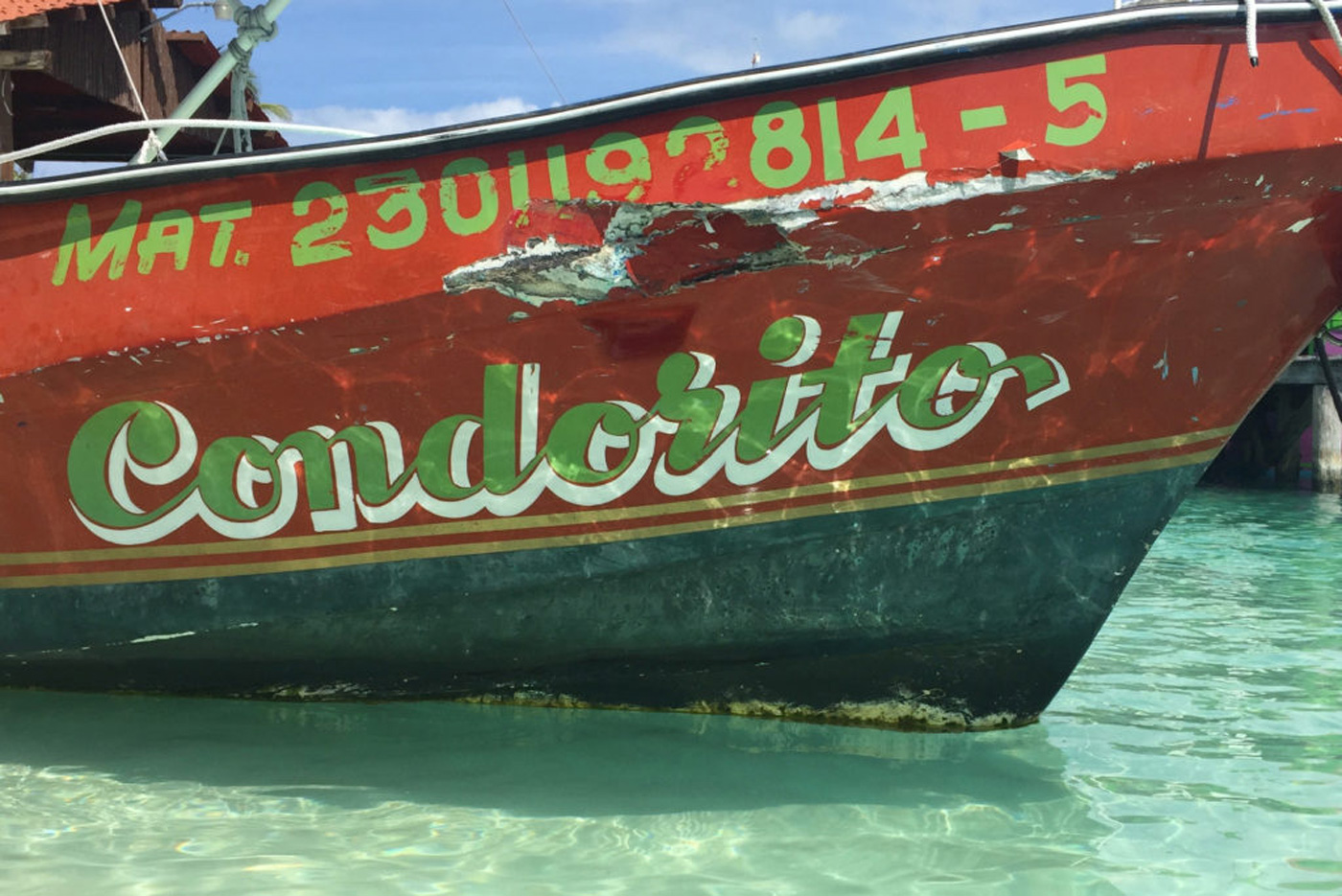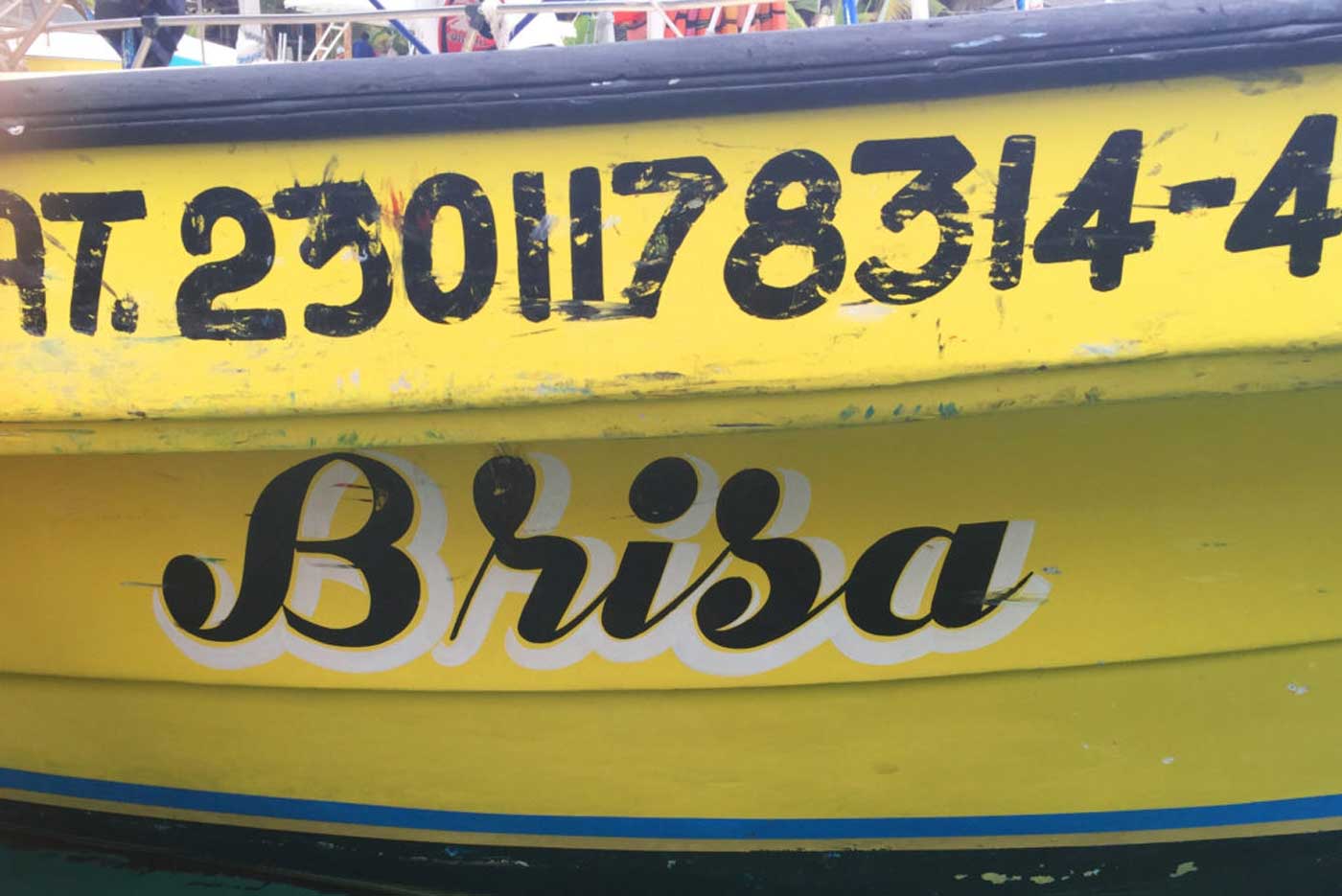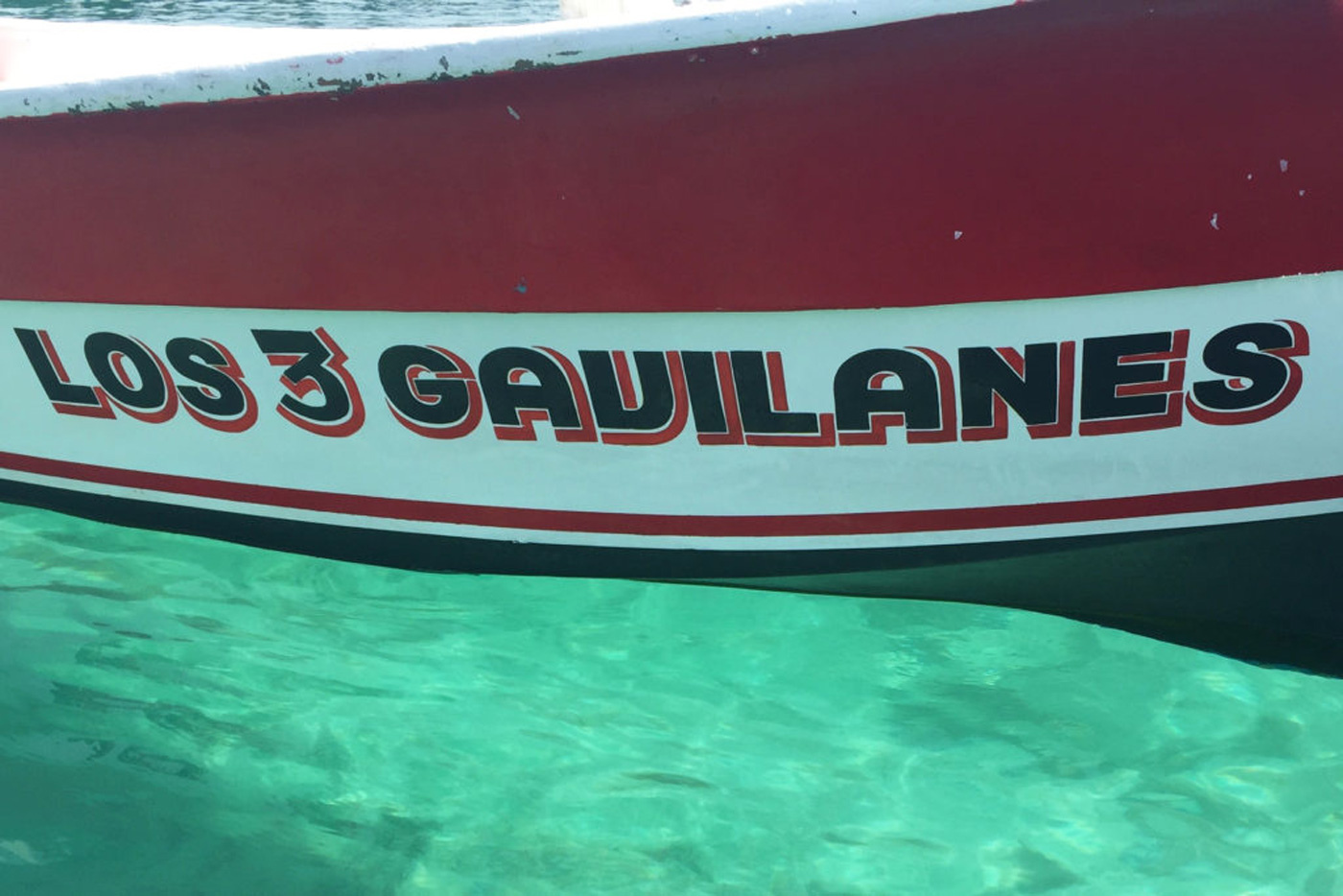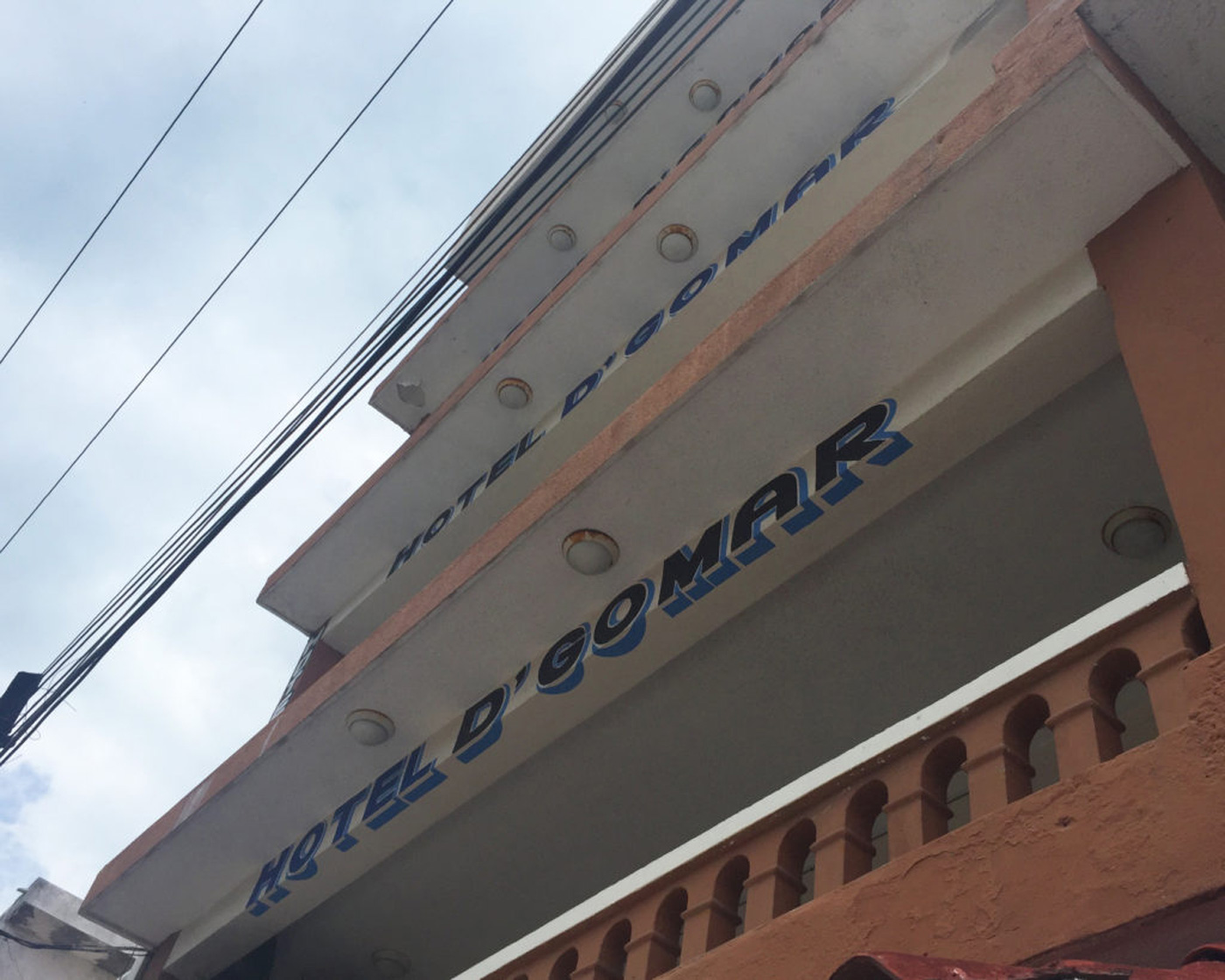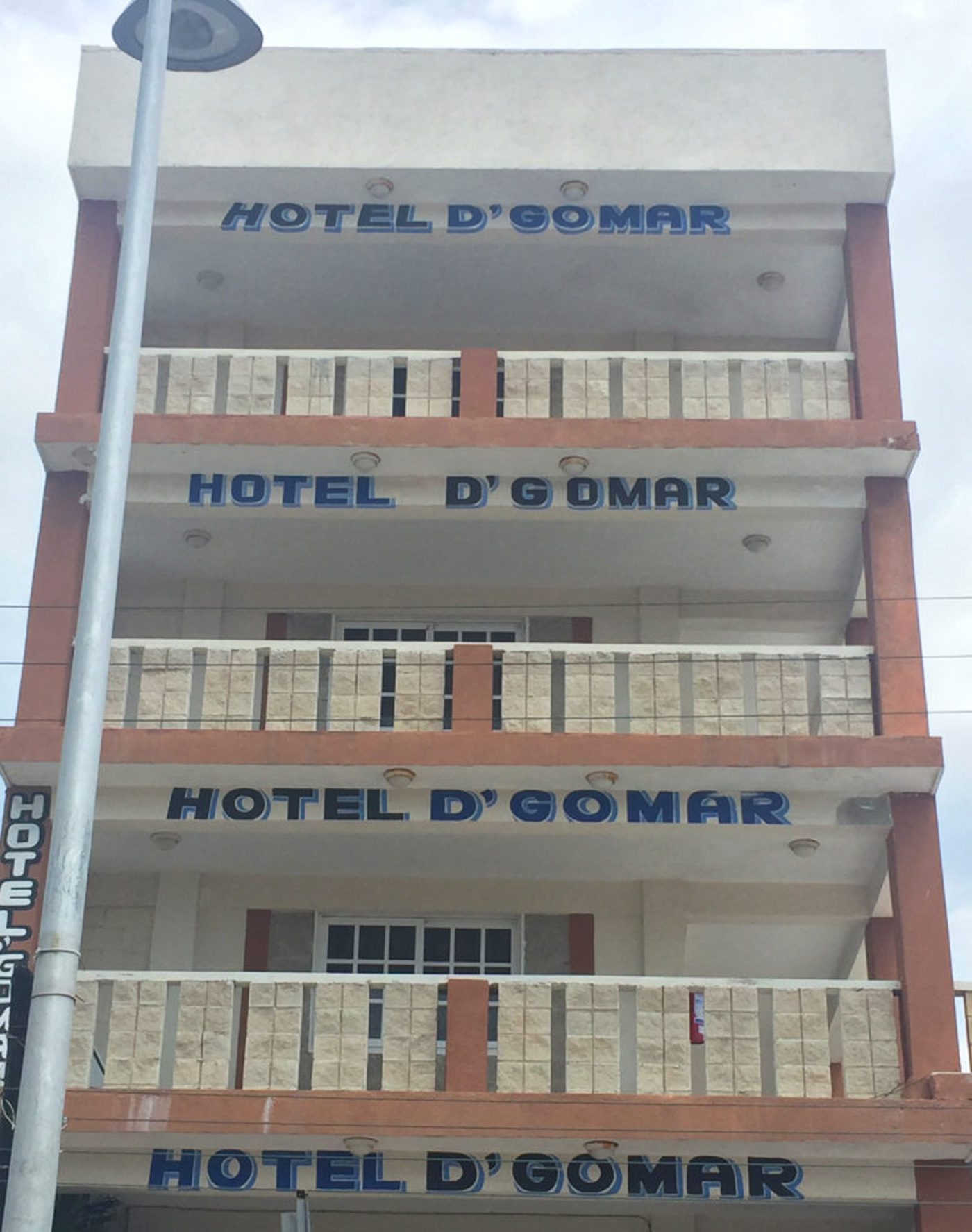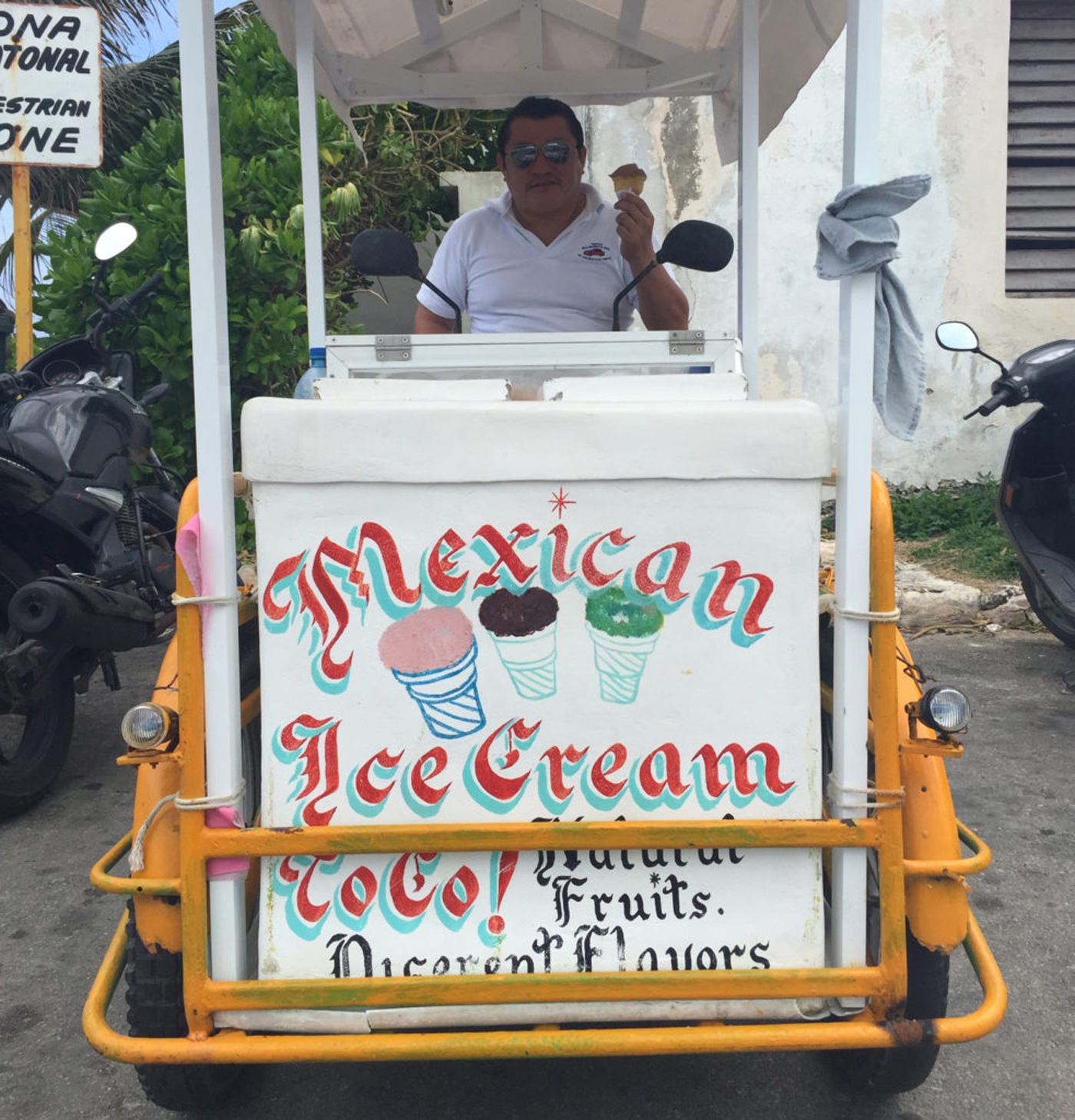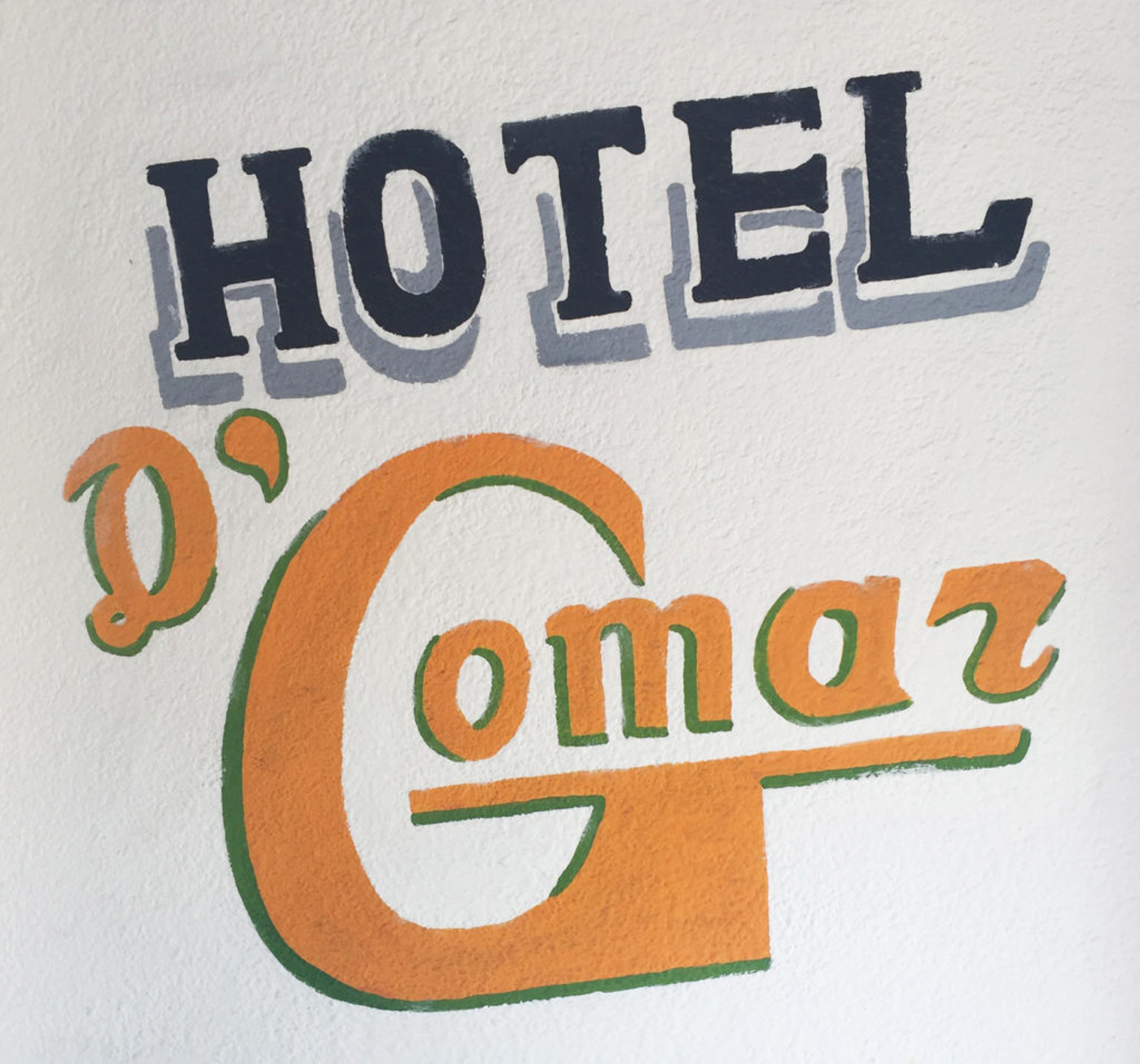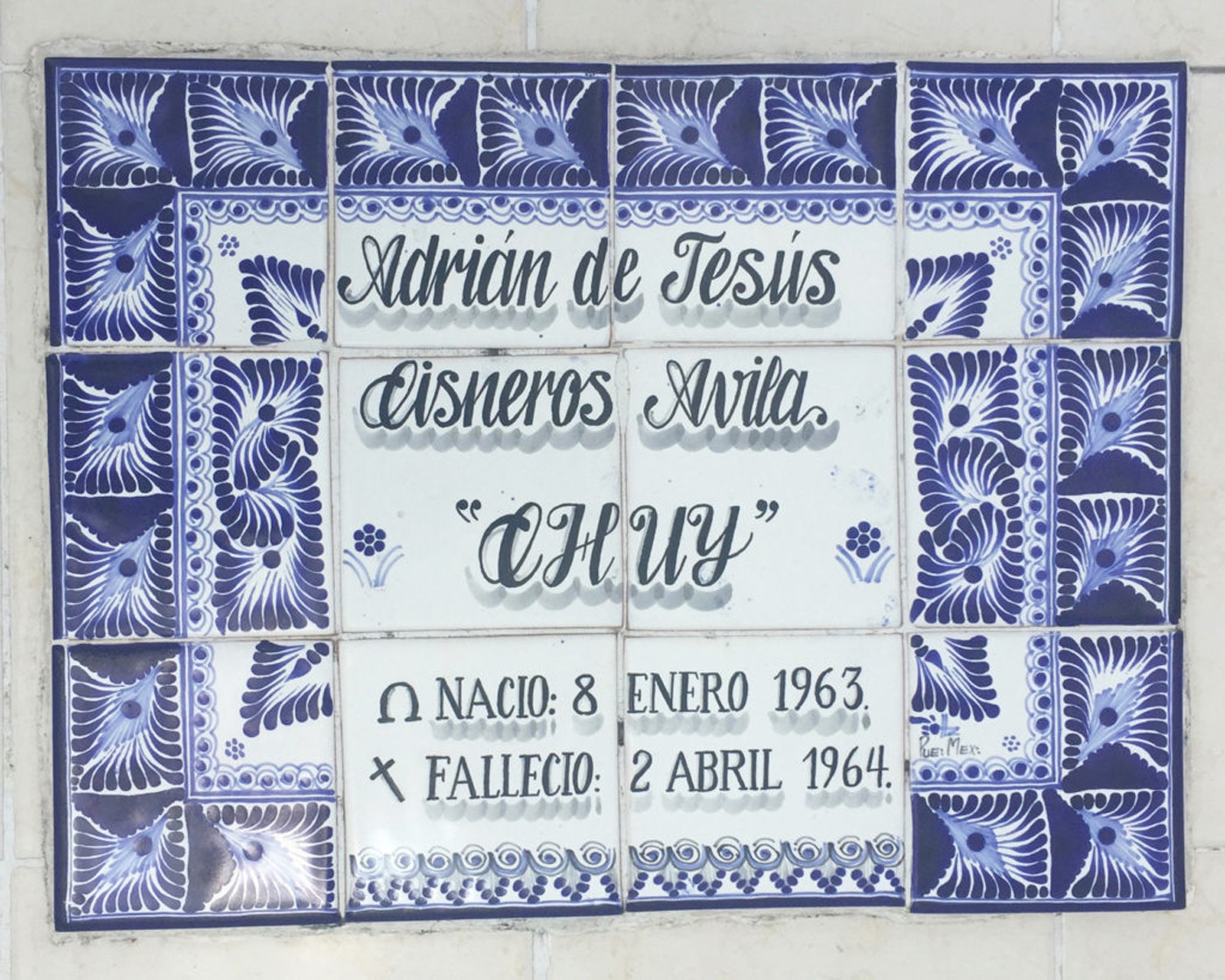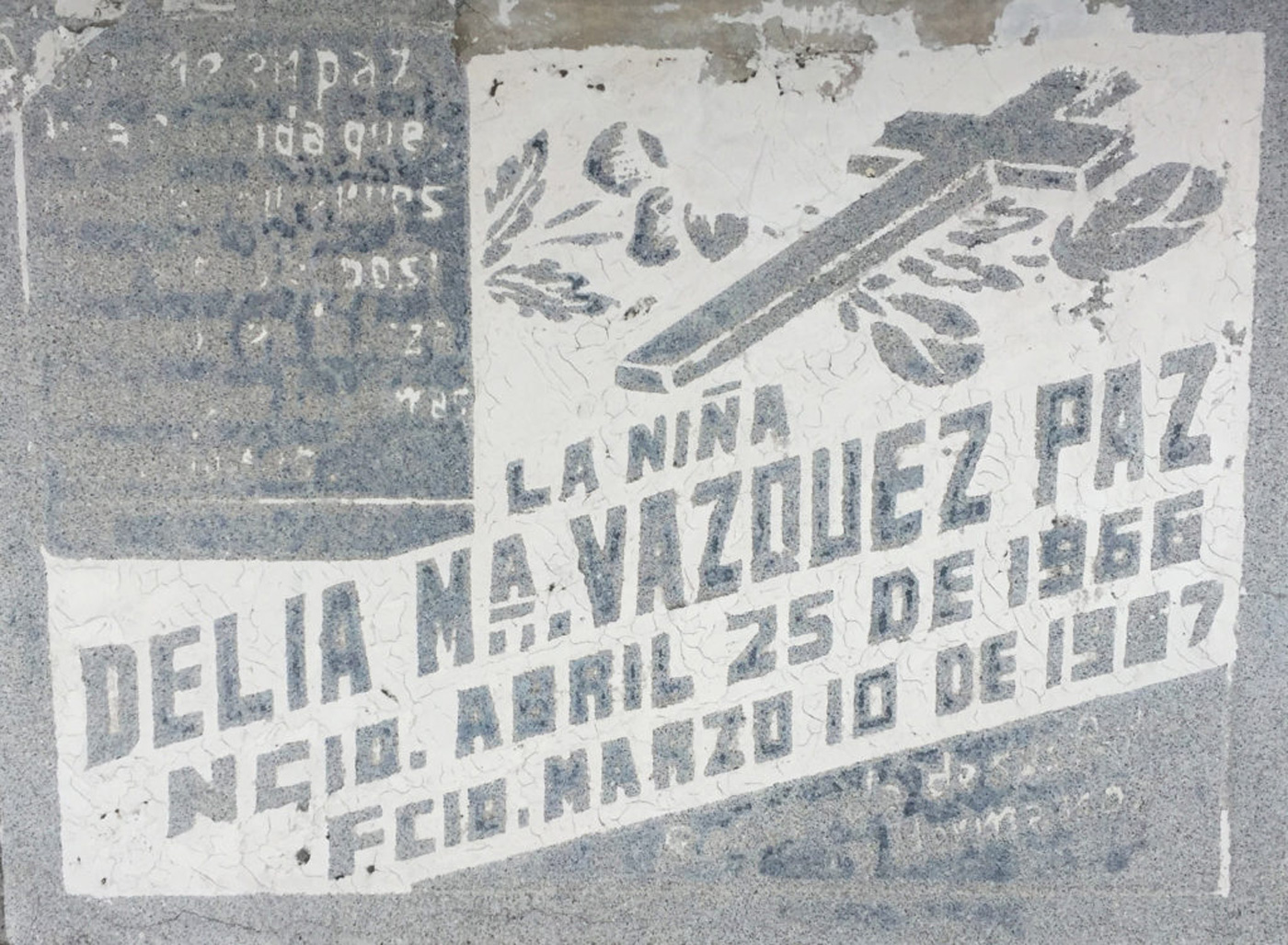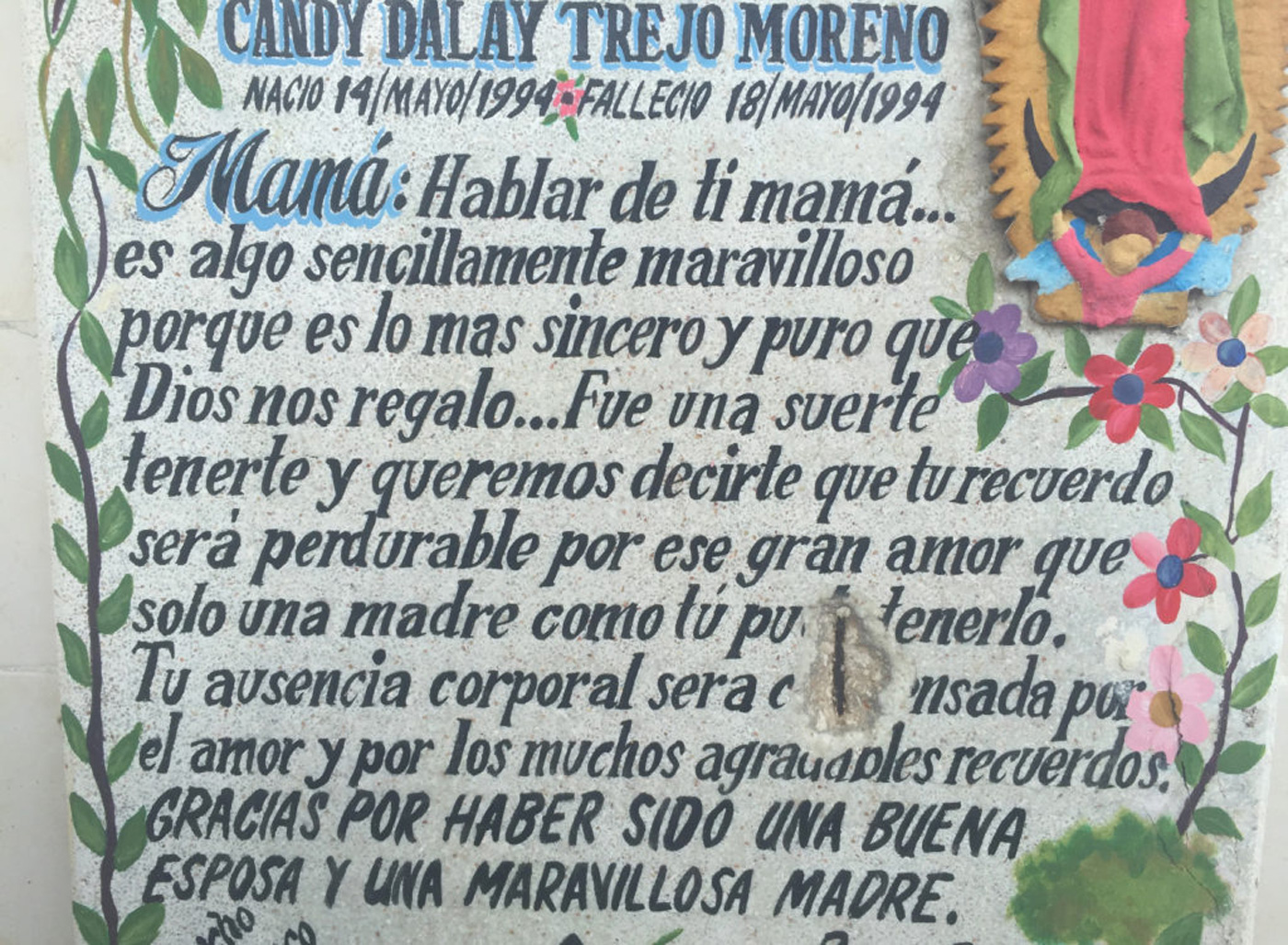
After five days of touristy ~chill~ we decided to take a boat to Isla Mujeres.
If the boats on the pier were any indication of the lettering I was about to see on the island, I knew I was in for a treat.
My parents’ friend, Kenny, who grew up in Mexico gave us a tour of the island. For the most part, everyone tolerated my demands to stop the golf cart so I could document the local lettering.
I didn’t even have to ask Kenny if we could stop at the graveyard. He just took us there. I was only a little miffed that I didn’t bring rubbing materials with me. I’m convinced one of these will serve as source material for a typeface in the future.
Then there were the more expressive signs 🙂